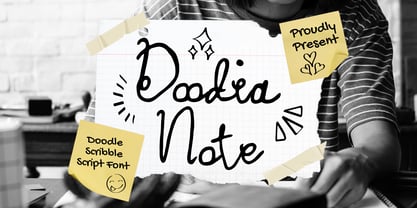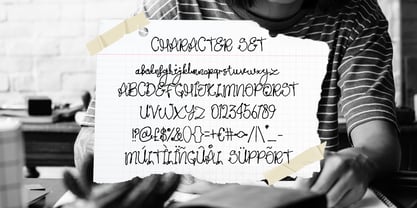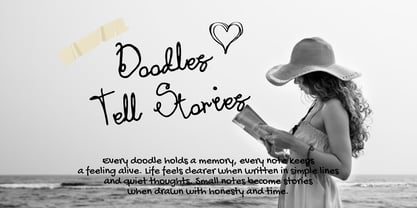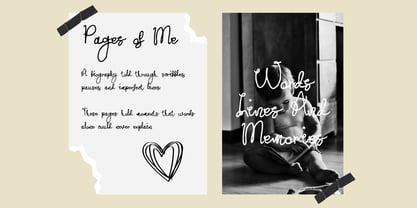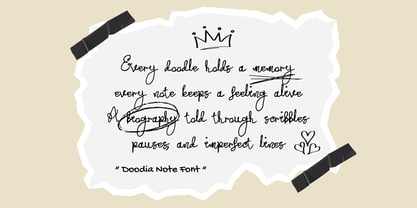
Doodia Note
La familia tipográfica Doodia Note fue diseñada por Yesie Erma Yunita y publicada por Shanaf. Doodia Note contiene 1 estilos. Más información sobre esta familia
DoodiaNote Doodle Scribble Script Font is a handwritten script built with loose, natural strokes and lively motion. Each letter feels slightly uneven, creating an organic rhythm that mimics real pen movement. Stroke weight stays thin to medium, allowing text to feel light and approachable. Letter height varies gently, adding personality without harming readability. Curves appear soft and spontaneous, while connections between letters feel relaxed and fluid. The surface feels imperfect in a charming way, which reinforces an authentic hand-drawn character. Spacing looks casual yet controlled, keeping words clear and readable in short texts. Uppercase letters appear expressive and friendly, while lowercase forms feel intimate and personal. Numbers and symbols follow the same scribbled logic, supporting playful compositions. The overall structure prioritizes emotion over precision, which gives the font its honest voice. DoodiaNote Doodle Scribble Script Font carries a playful, warm, and youthful style inspired by notes, sketches, and personal journals. The tone feels friendly, emotional, and approachable, making it ideal for storytelling designs. This font works well for logos, branding, headlines, posters, stickers, book covers, and greeting cards. It fits children projects, creative businesses, handmade products, and casual advertising. The handwritten look helps messages feel personal and sincere. DoodiaNote Doodle Scribble Script Font adds character to quotes, packaging, invitations, and craft designs. Designers can use it to communicate joy, nostalgia, and creativity without feeling rigid. The font performs best in display use where emotion and personality matter. It supports both digital and print projects that need a human touch. DoodiaNote Doodle Scribble Script Font turns simple words into expressive visual moments.